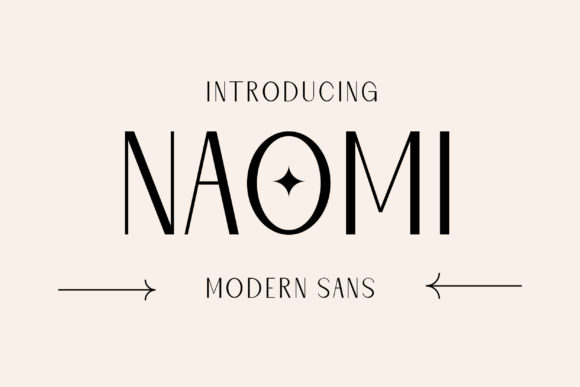
Are you seeking a font that gracefully combines sophistication and artistic flair? Look no further than Naomi; an exquisite sans-serif typeface that transforms your designs, leaving an indelible impression on your audience. Created by yukitacreative, a visionary digital artist, Naomi embodies the spirit of modern creativity, catering to individuals who want to stand out and leave an unforgettable mark.
Upon introducing Naomi to your design toolkit, you'll discover a world of possibilities. Effortlessly craft high-end fashion logos that exude luxury and elegance. Design captivating cinematic video titles that immerse viewers in a captivating narrative. Create eye-catching social media posts that ignite engagement and leave a lasting impression. With Naomi as your creative companion, the boundaries of your imagination are boundless.
What distinguishes Naomi from other fonts is its innate ability to enhance the clarity and allure of any design. Its finely tuned letterforms offer exceptional readability, ensuring your message is effortlessly conveyed to your audience. While Naomi possesses an inherent charm, its adaptability allows you to unleash your creativity without overwhelming the design. Experiment with various font sizes and layouts to create mesmerizing visual compositions.
Naomi is more than just a font; it's an artistic tool that empowers you to transform ordinary designs into extraordinary masterpieces. Let Naomi be your creative catalyst as you push the boundaries of design and create captivating visuals that resonate with your audience. Embrace the allure of Naomi today and embark on a transformative creative journey that will redefine your design aesthetic.